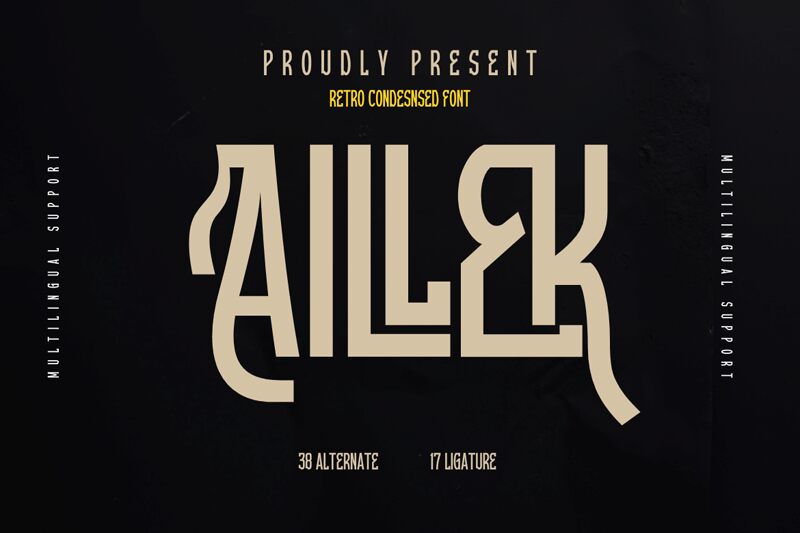
AILLEK trial Regular
Aillek by Twinletter is a captivating display font that exudes a delightfully retro aesthetic. Its condensed structure and bold, angular letterforms command attention, evoking a sense of vintage allure and timeless charm. This font's striking visual identity effortlessly bridges the gap between the past and the present, making it a versatile choice for a wide range of design projects.
The Aillek font's unique design features and distinctive character make it an excellent selection for eye-catching headlines, impactful branding, and retro-inspired layouts. Its condensed width allows for maximizing impact within limited spaces, while the retro-inspired style imbues designs with a nostalgic, yet contemporary flair.